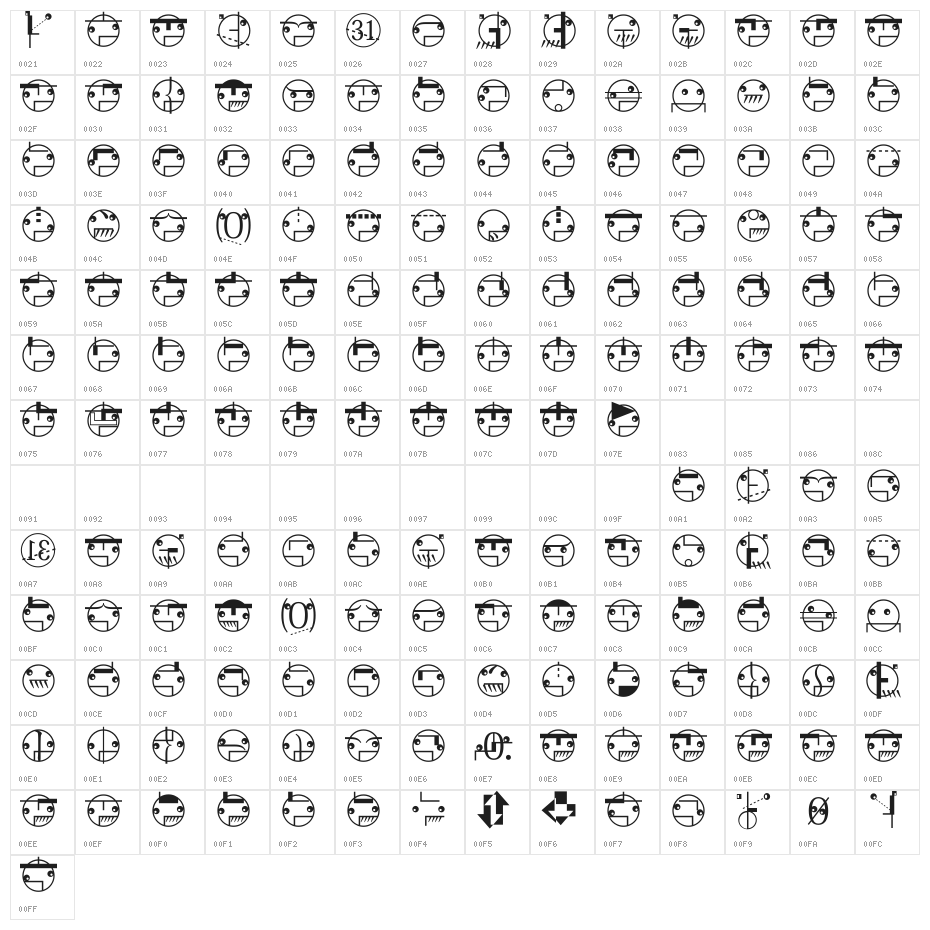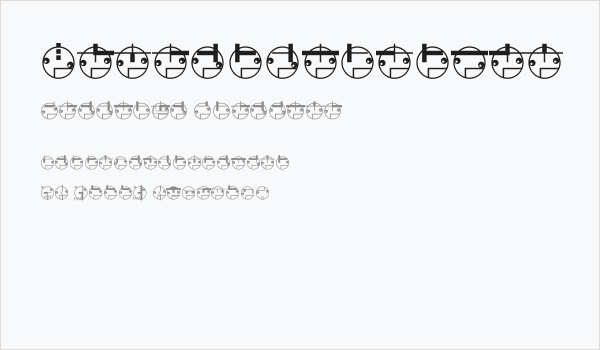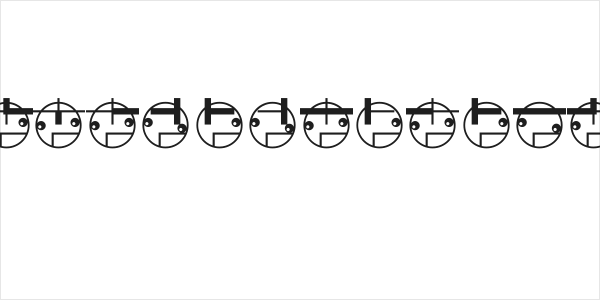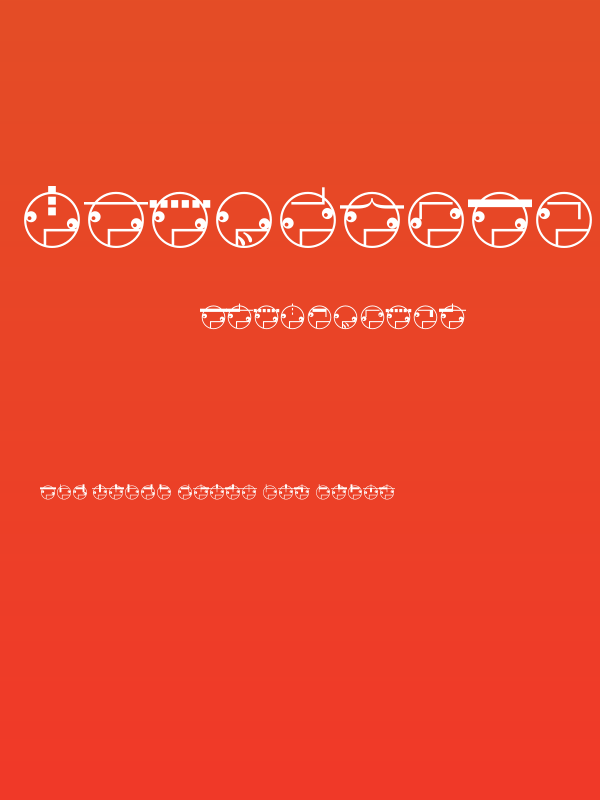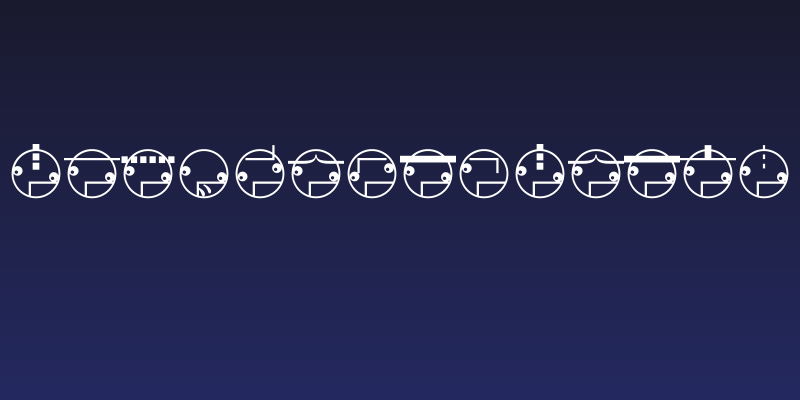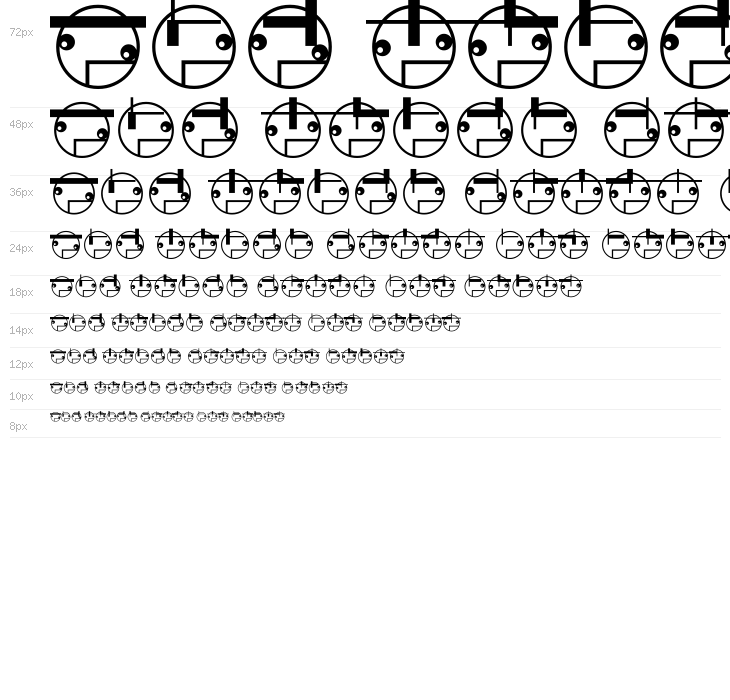
SuprematismTwo Font
SuprematismTwo Description
This font is a highly abstract and decorative typeface, characterized by its circular, geometric forms and unique, artistic design. Each character is enclosed within a circle, incorporating various geometric shapes and lines that create a distinct, avant-garde appearance. The design is reminiscent of the Suprematism art movement, focusing on basic geometric forms and a limited color palette. The characters are not easily recognizable as traditional letters or numbers, making this font more suitable for artistic and decorative purposes rather than practical text applications. The overall aesthetic is modern and experimental, appealing to those looking for a bold and unconventional style.
| Overall Style | Modern, Artistic, Abstract |
| Use Case | Logos, Art installations, Experimental design |
| Proposed Projects | Ideal for art projects, modern posters, experimental design work, and unique branding materials. |